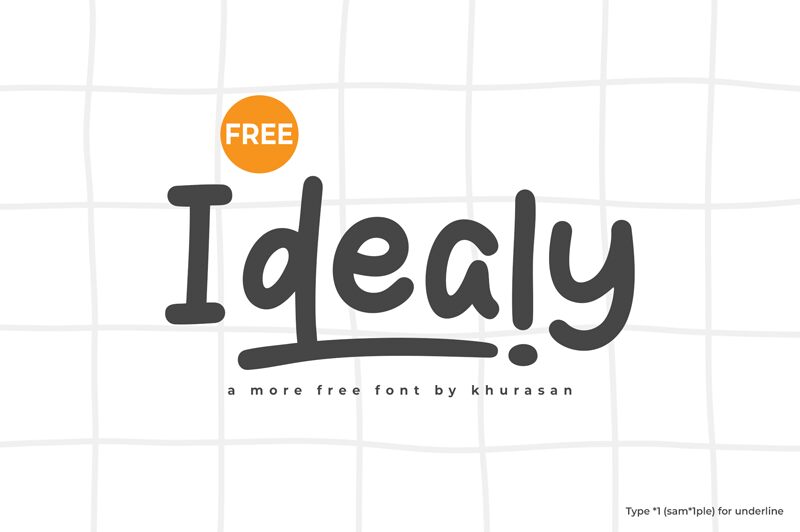
Idealy
Idealy font by Khurasan is a free display font whose every letter is a unique design opportunity in itself. The characters are created in a cartoon style deliberately for striking, expansive logotypes and print headlines that will not be forgotten by readers. Owing to the youthful and contemporary appeal, this versatile Idealy font always appears friendly and approachable.
Use this smooth casual font across newspapers, flyers, magazines, posters, social media posts, or event invitations. Greeting cards also become special through it while websites and applications can be easily rebranded with new audiences in mind as users smile accessing the updated platform.